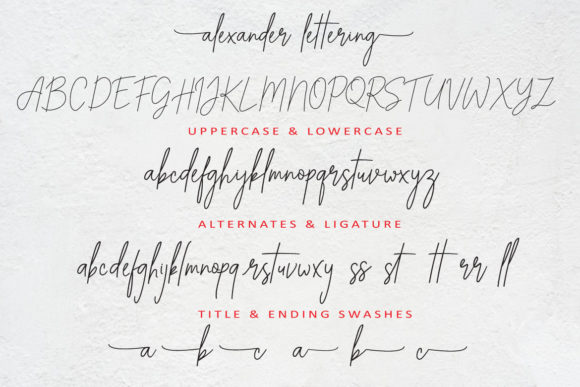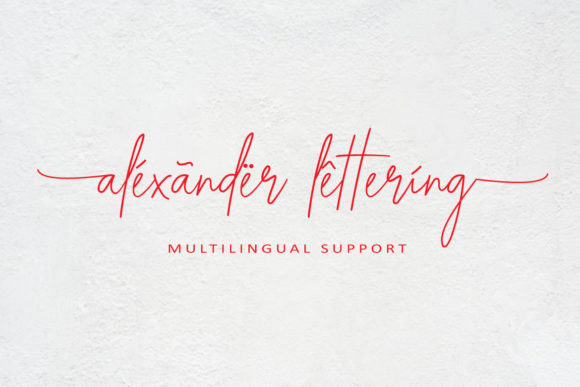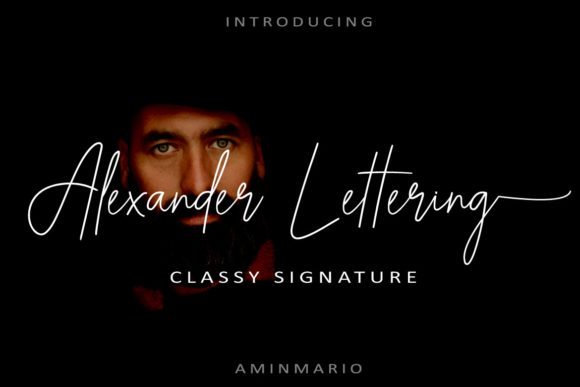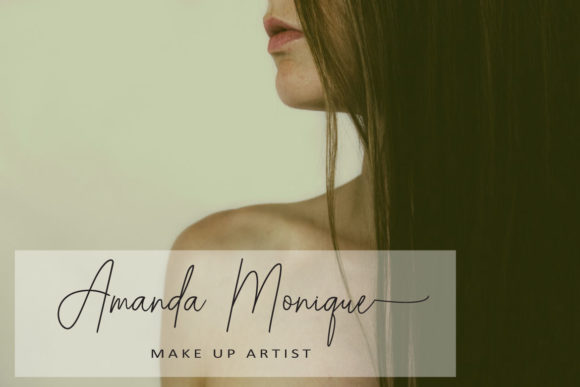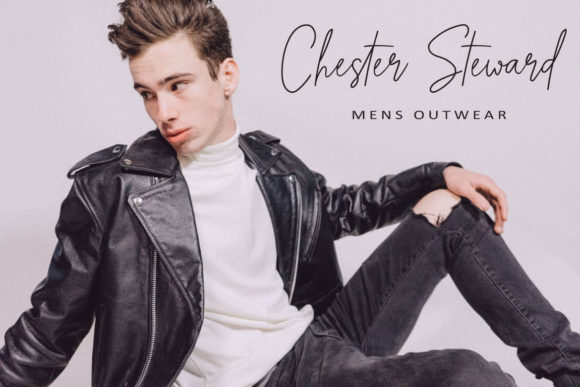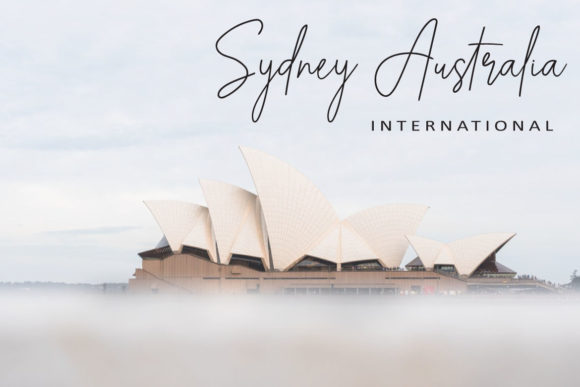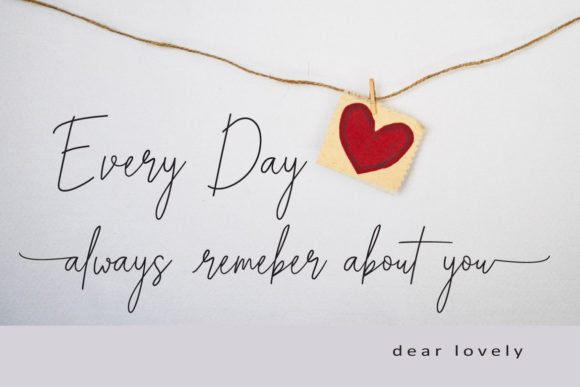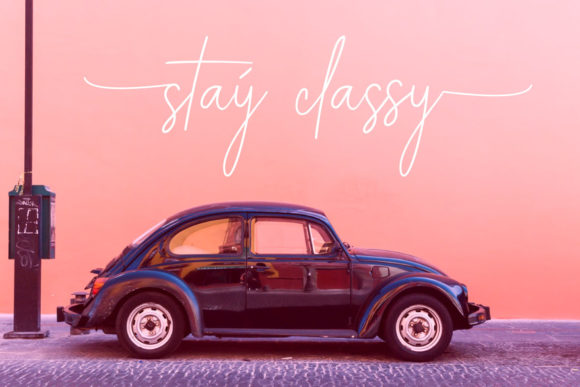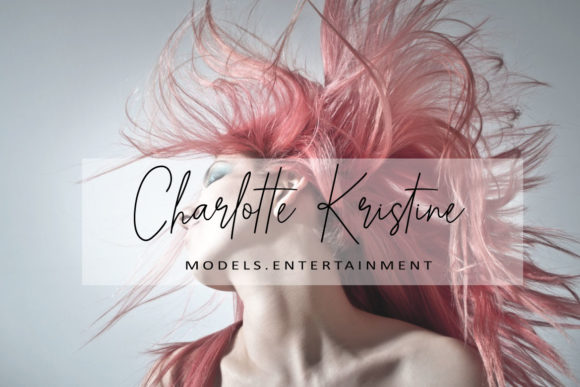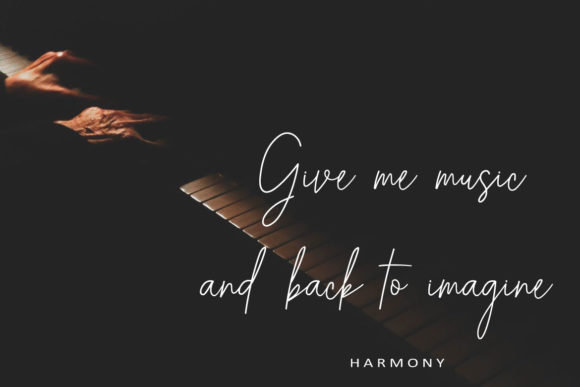
Alexander Lettering Font
About Alexander Lettering Font
Alexander Lettering is a fun, yet classic handwritten font with a contemporary twist. Fall in love with its authentic charm!